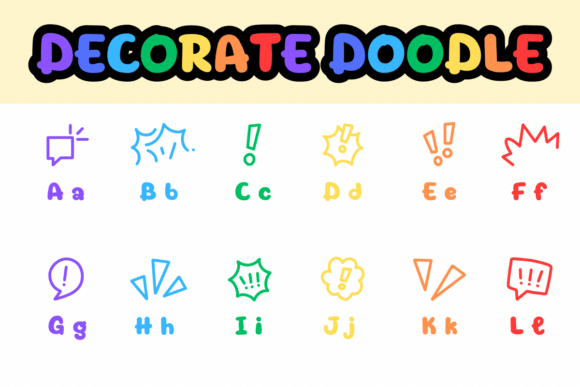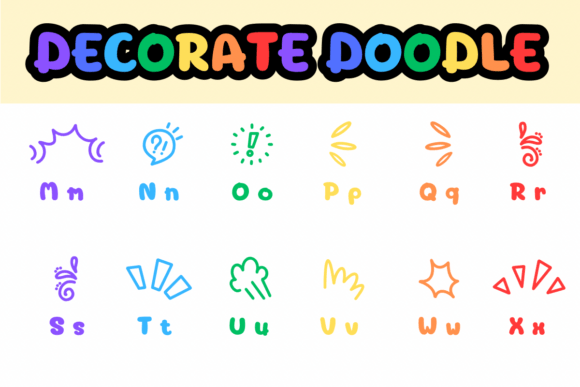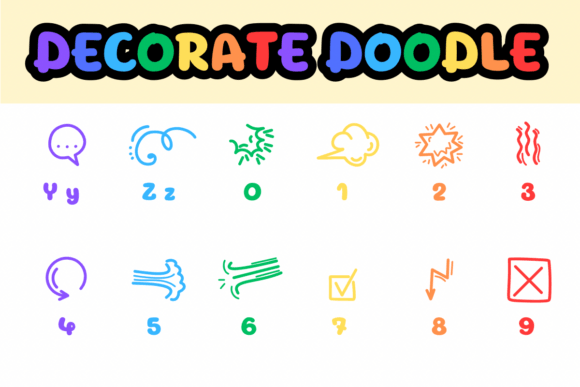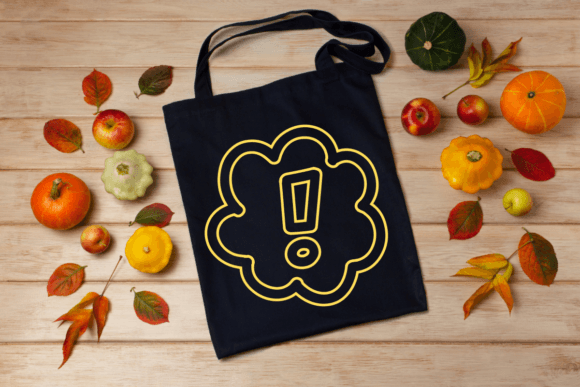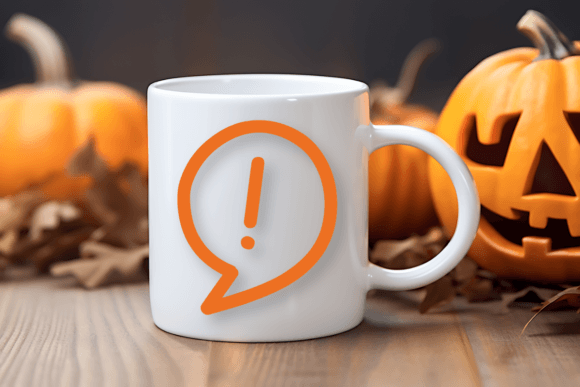
Introduction to Dacorate Doodle Font
Have you ever sat down with a blank piece of paper, a pen, and a blank mind, only to let your creativity flow freely and turn your doodles into something truly magical? That’s the kind of creative moment that inspires designers and crafters alike, and it’s exactly what the Dacorate Doodle Font aims to capture.
This unique dingbats font boasts a sketch-style design that’s perfect for adding a personal touch to your creative projects. From wedding invitations to DIY crafts, decorations, and logos, the Dacorate Doodle Font is a valuable design resource that can help bring your ideas to life.
- Unique, hand-drawn design ideal for creative projects and artistic expressions
Honest Review: Dacorate Doodle Font
I recently had the chance to work with the Dacorate Doodle Font, and I must say it’s a lovely addition to my design resource library. This free download is perfect for any creative project that needs a touch of whimsy.
Here are some things that work well: ✨ High-quality glyphs, ✨ a transparent background that makes it easy to customize, and ✨ a wide range of expressive characters that add a playful feel to any design.
- Wide range of expressive characters
- High-quality glyphs
However, there are a few limitations to keep in mind: ⚠️ The font is not as versatile as some of the other doodle fonts I’ve worked with, and ⚠️ it may not be the best choice for designs that require a lot of subtlety.
Overall, I’m impressed with the Dacorate Doodle Font. It’s a great addition to any designer’s library, especially for projects that need a bit of personality. While it may have some limitations, it’s a high-quality design resource that’s sure to bring a smile to your face.
Design Tips
To get the most out of the Dacorate Doodle Font, use it on a transparent background to give your designs a seamless look. Experiment with different font sizes and colors to add visual interest to your project.
The Dacorate Doodle Font is ideal for creative projects such as social media graphics, blog posts, and presentations. Its playful and whimsical style makes it perfect for adding a touch of personality to your design.